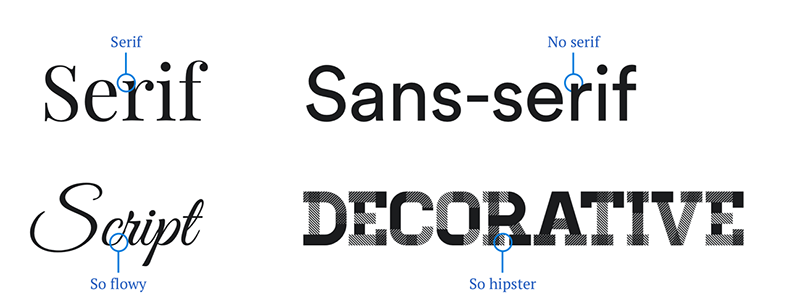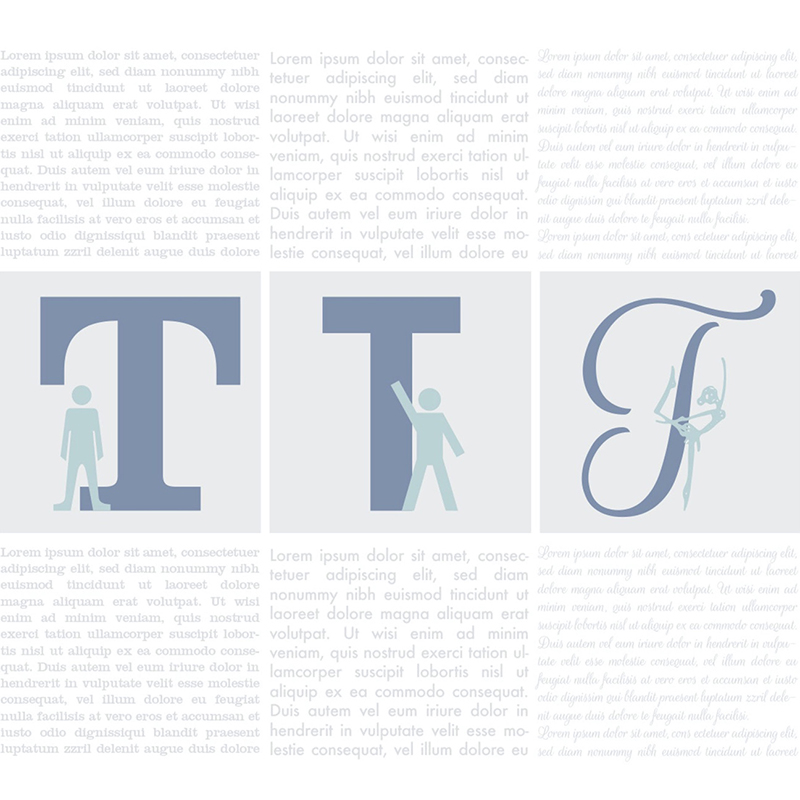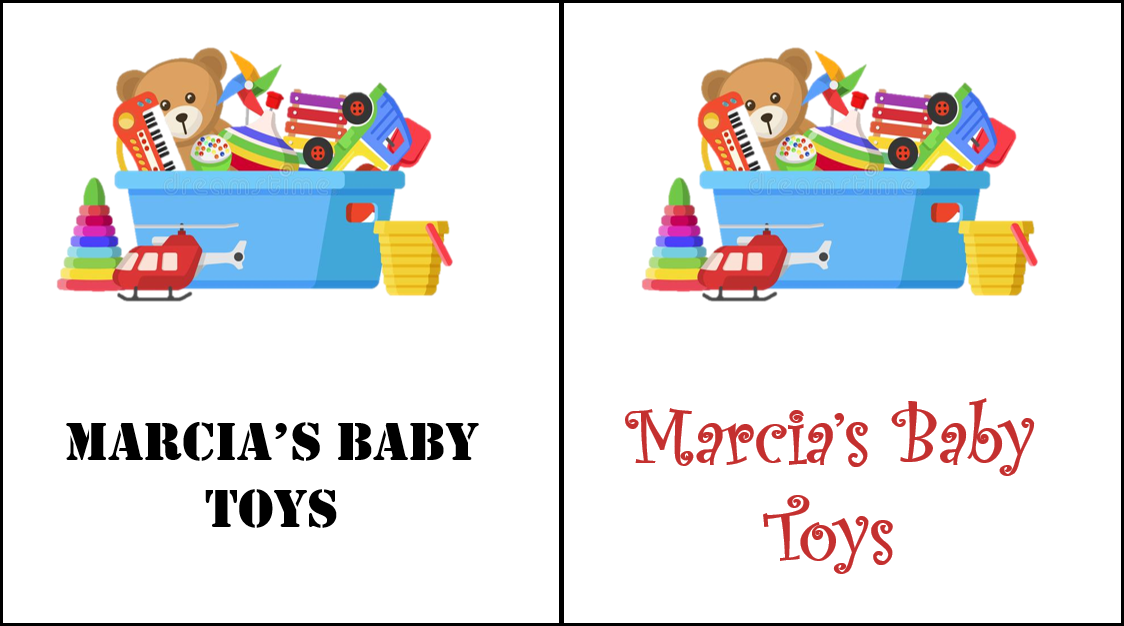
Fonts matter
Have you ever looked at a sign or a logo and the font makes it impossible to read what’s written?
Fry from Futurama has a speech bubble saying "What does this say!?"
Maybe it’s the opposite and the words feel bold and inspire strength. Fonts may not at first blush seem like part of an image but their visual quality can carry or break an effective logo. Different fonts are used to add style to a web page, visual, or document. They may be used to set or match the "tone" of the text based on the content. Additionally, certain fonts affect readability, depending on the medium. I want to explore the ideas of fonts in this post, and the ways in which they impact visual communication.
A font is described as a graphical representation of text that may include a different typeface, point size, weight, color, or design. Fonts are categorized into four basic categories. The first two are fonts that do and do not have serifs. A serif is a slight projection finishing off a stroke of a letter. Common serif fonts include “Times New Roman” and “Georgia”. Common fonts without these projections at the end of strokes include “Helvetica” and “Arial”. The other categories of fonts are scripts and decorative styles. There are believed to be more than half a million different fonts internationally. And while there exist thousands of subcategories to organize them, they all fall into one of these four categories.
examples of four categories of fonts
The practice and study of fonts and typefaces is known as typography. It includes a broad range of study covering all aspects of letter design and application, both mechanical (typesetting, type design, and typefaces) and manual (handwriting and calligraphy).
How letters are formed into these fonts can fundamentally change the way we feel about the words they form.
San Serif fonts:
San serif fonts are easier to read in body text and are considered clean, business-like, modern, and approachable. While their main characteristic is a lack of serifs, they use simple clean lines that are the same width throughout.
For this reason, they are usually preferred for on-screen reading. Sans serif fonts give off a feeling of being casual, informal, friendly, and very approachable. Companies who want their brands to appear more youthful and relatable tend to use sans serif fonts. In today’s world, sans serif fonts are more popular in general than serif fonts.
the fastsigns tagline in san serif
Serif fonts:
Serif fonts are simple but inspire respectability, trustworthiness, and tradition. They date back to the 18th century when masons carved letters into stone and therefore offer a feeling of classic refinement. This usually makes them a good fit for companies who want to appear more reputable, established, and serious.
the fastsigns tagline in serif
Script Fonts:
Script fonts mimic cursive handwriting. There are formal scripts and there are casual scripts. Script fonts have a more personal touch like calligraphy and handwriting. Formal scripts are very fluid and graceful, and often have connecting strokes. They are appropriate when an elegant, stately look is desired. Formal scripts are commonly used for invitations, announcements, and decorative initial letters, where their elegant look can go a long way towards setting a sophisticated tone.
Casual scripts are meant to look friendly and loose, as though quickly drawn with a pen, brush, or similar writing instrument. Their strokes can be connected or not, and the mood conveyed tends to be warm, personal and relaxed. Casual scripts are often used for ads, brochures, and anything that requires an intimate, informal look.
the fastsigns tagline in script
Decorative Fonts:
Decorative and display fonts became popular in the 19th century. They were used extensively on posters and advertisements, and were artistic and eye-catching in a way that wasn't considered previously.
Decorative fonts should be used exclusively for decorative or ornamental purposes. They are not suitable for use in body text. They tend to have a very distinct look, for example a wild west style, horror, or Christmas. They are used to decorate, embellish, and beautify text.
the fastsigns tagline in decorative font
Any design you create is intended to elicit a specific response from the audience. The most common of these responses is a call to action. In the circumstance where the call to action is to motivate the audience to purchase a product, it’s imperative that the call to action aligns to the audience and appeals to them personally. In addition to carefully created imagery and selected colors, the font has a similar impact. For example:
a baby toy logo comparing two font styles
In this example, the words and image are identical. The only difference is the font. And while neither is incorrect, the image on the right elicits a more casual and fun feeling for the toys because of the script vs stenciled font style.
the letter T in three different fonts